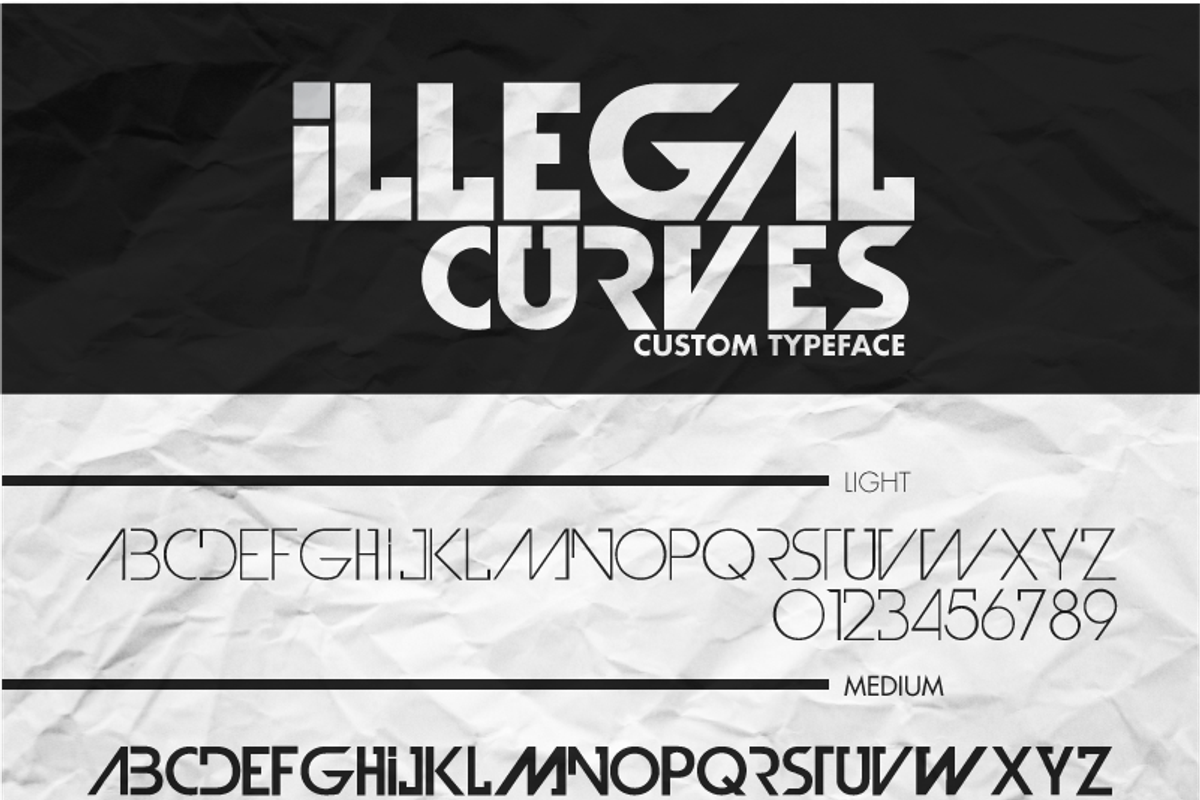
iLlegal Curves Typeface
iLlegal Curves Typeface by WesloFonts is a font selected for branding, posters, packaging, typography.
- Illegal Curves Light
- Illegal Curves Medium
- Illegal Curves Bold
Why iLlegal Curves Typeface is worth a look
iLlegal Curves Typeface by WesloFonts fits naturally into Branding, posters, packaging, typography.